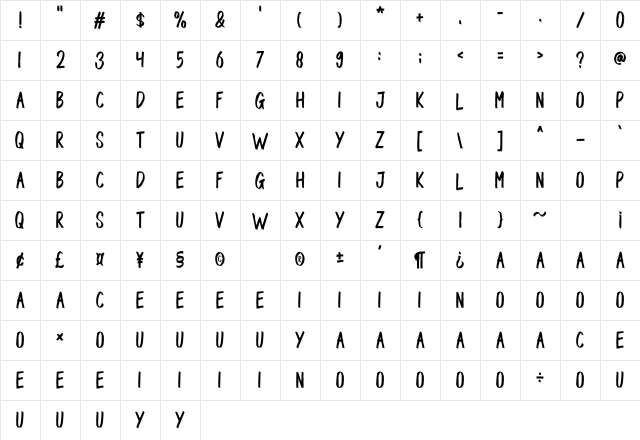
LITTLE NIGHTMARE Regular Free Font
LITTLE NIGHTMARE Regular
Foundry: Graphix Line Studio
Designer: Aldi Raya Pradipta
Design Context for LITTLE NIGHTMARE
LITTLE NIGHTMARE is a composed and adaptable typeface that performs quietly and consistently across a wide range of design contexts.
Pro Tip: Use LITTLE NIGHTMARE in both headline and body roles to test its range before committing to a single application.